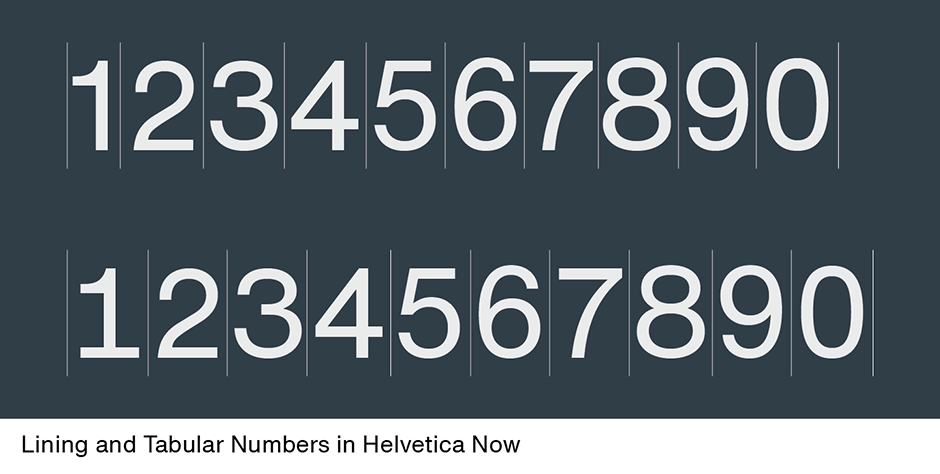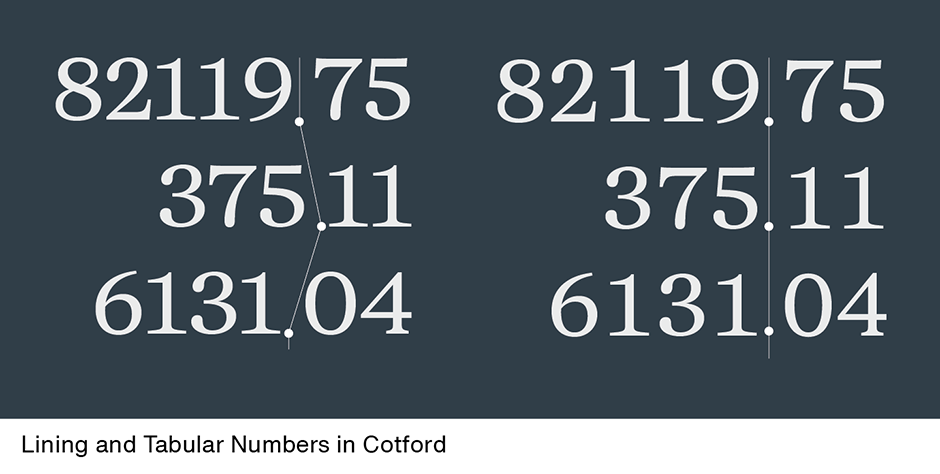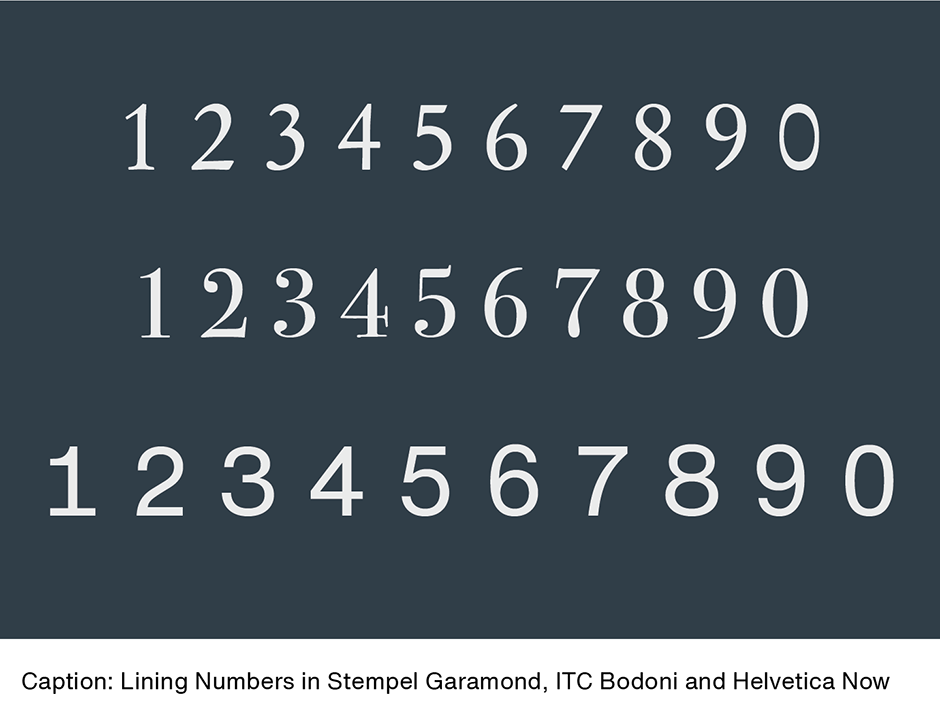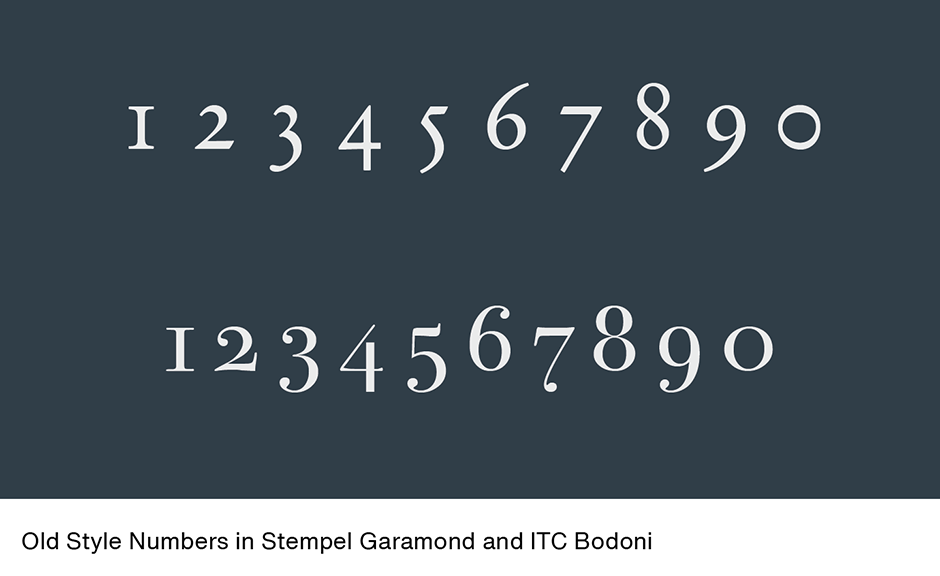
By The Numbers: From Gutenberg to Subscripts Manual
For many years, printers and typographers benefited from two sets of numerals, but as machines began to be used for setting type, typographic variety was sacrificed for mechanical efficiency.
When Gutenberg invented the art of typography he included a set of numerals in his fonts. But, for almost 100 years, numerals were treated as “pi” characters and not created to be part of any particular typeface design. Claude Garamond, the great 16th century type designer, is generally given credit for creating the first font of type with numerals specifically designed to complement letterforms of a specific typeface. Except for stylistic variations, Garamond’s numerals set the standard for over 200 years.
Old Style Numerals
Garamond intended his numerals to be set as part of text copy and designed them to have the same proportions as the lowercase letters. Like lowercase letters, Garamond’s numerals are based on three forms: ascending, medial, and descending. In addition, to avoid confusion with the lowercase o, the zero has a different weight stress than the lowercase character.
Old Style Numbers in Stempel Garamond and ITC Bodoni_110
New Numbers
This “lowercase” style of numerals became a model for type designers until the late 18th century. It was then that a new kind of number (called “lining” or “ranging”) was introduced for mathematical and technical typesetting. The idea behind this new set of numerals was that they would be larger – and a more legible alternative to Garamond’s design. If the first numerals used in printing can be considered as lowercase characters, then ranging numerals should be thought of as uppercase designs. These numerals usually have the same height, and match the uppercase letterforms in weight and proportion.
Lining Numbers in Stempel Garamond, ITC Bodoni and Helvetica Now_101
Sometimes lowercase numerals are referred to as “old style” designs. This is because when ranging numerals became popular, many typographers referred to them as “modern” numerals – which left the previous style to be relegated with the moniker of “old style”. To this day traditionalists tend to refer to the style of numerals found in Garamond’s font as “old style.”
For many years, printers and typographers benefited from both sets of numerals, but as machines began to be used for setting type, typographic variety was sacrificed for mechanical efficiency. Machine-set type had limited character sets, which allowed for only one set of numerals. Some fonts (generally those text designs confined to what printers called “book work”) had the lowercase design, while others (more general purpose fonts used for “jobbing work”) had the ranging design. When phototype replaced machine set metal type, most foundries chose just the ranging style for inclusion in their fonts.
Tabular Numerals
Tabular numerals are designed and spaced so that the zero through nine are on the same width space. This allows columns of numerals, such as those in annual reports, other financial statements or mathematical content, to align. In machine-set metal type, tabular numerals were usually put on the en-space. This is not necessarily the case with digital type. Generally, the ranging designs are used to create tabular numerals. In some fonts, however, both ranging and old style tabular numerals have been made available as tabular characters.
Superior and Inferior Numerals
Superior and inferior numerals, sometimes called superscripts and subscripts, are drawn to be about 60% the height of the full size numerals. Superior numerals are used to indicate footnotes, to signify exponents or indices in mathematics and sometimes (in display copy) for prices. Inferior numerals are normally used in setting chemical and mathematical notations.
In the five-hundred plus years, since many fonts shared the same numbers, fonts now contain ten, or more, different sets – and that’s not including fractions.